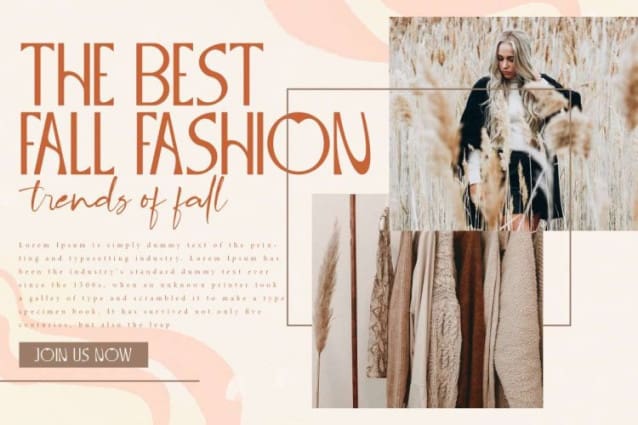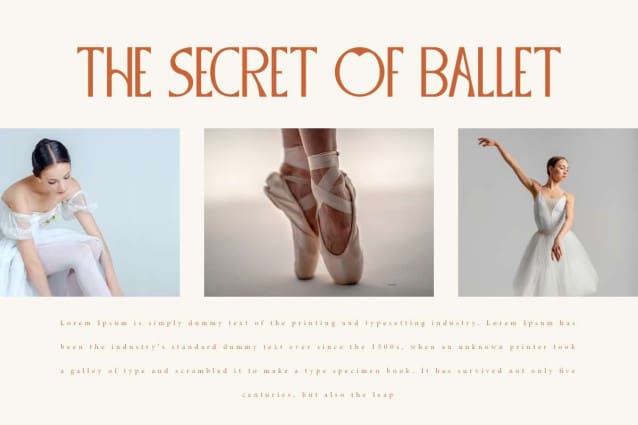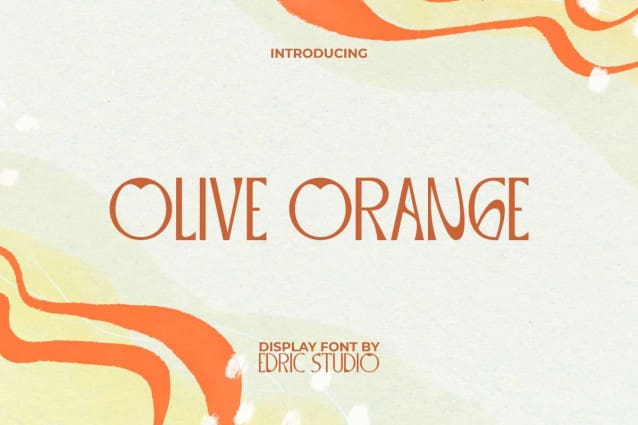
Olive Orange Font
Olive Orange Font is a fresh playful display font with a unique characters edges. This unique letter shape makes it attractive and can captivate anyone. It will bring a different touch to whatever your design is, such as apps, blogs, brochure, business card, cover, flyer, header, logos, packaging design, poster, price label, quotes, screen print, signage, sticker, title, website, and more.
Olive Orange Font comes with a full set of ALL CAPS for Uppercase and Lowercase letters, Number, Punctuation and Symbol. The theme is really refreshing to the eye, because of the oranges. It really looks awesome. Can be adapted to suit any industrial needs, such as ads, author, ballet, content creator, convenience store, craft, fashion, gifts and merchandise, graphic design, printing, publishing, web designer, writer, etc.